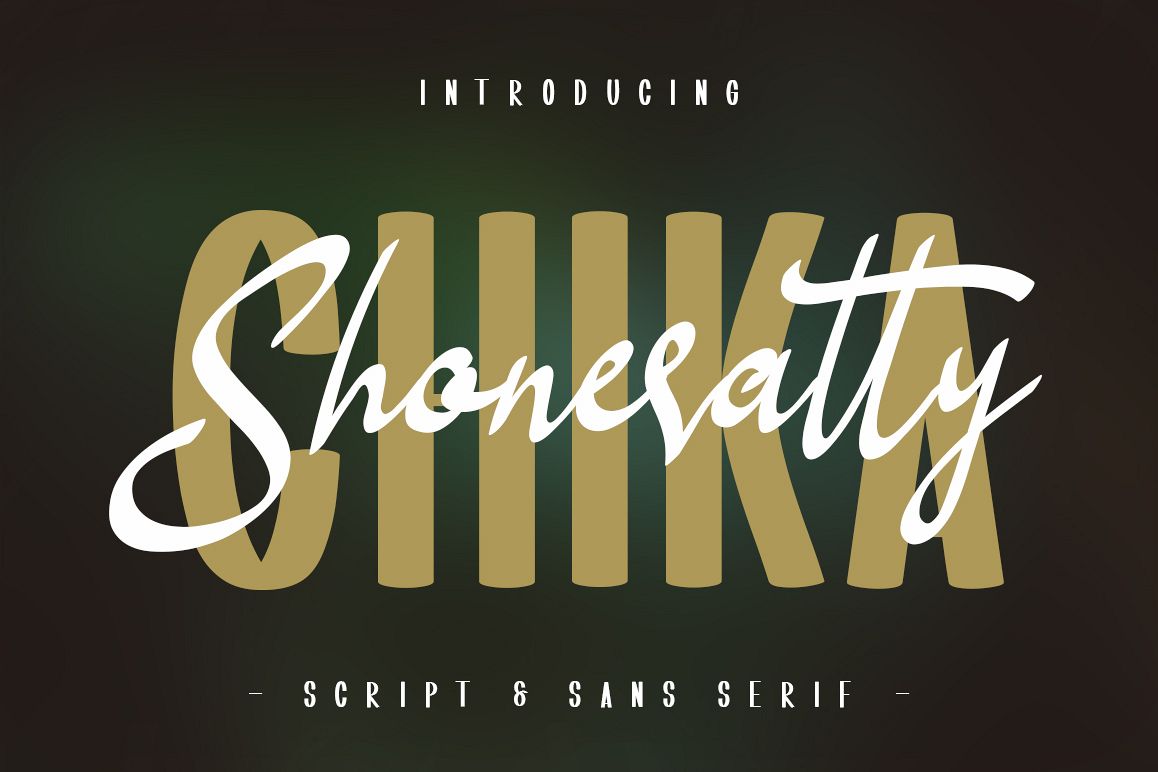
Shoneratty Chika Typeface
Introducing the Shoneratty Chika Typeface; Classy and a stylish blend of contrasting script & sans serif fonts. It is free-flowing, fashionable and feminine. Give your design touch more interesting with Shoneratty Chika Typeface. A smart solution & perfectly suited to signature, logos, headlines, quotes, wedding invitations, website header, magazine, book cover, clothing, branding, stationery, packaging design and more.